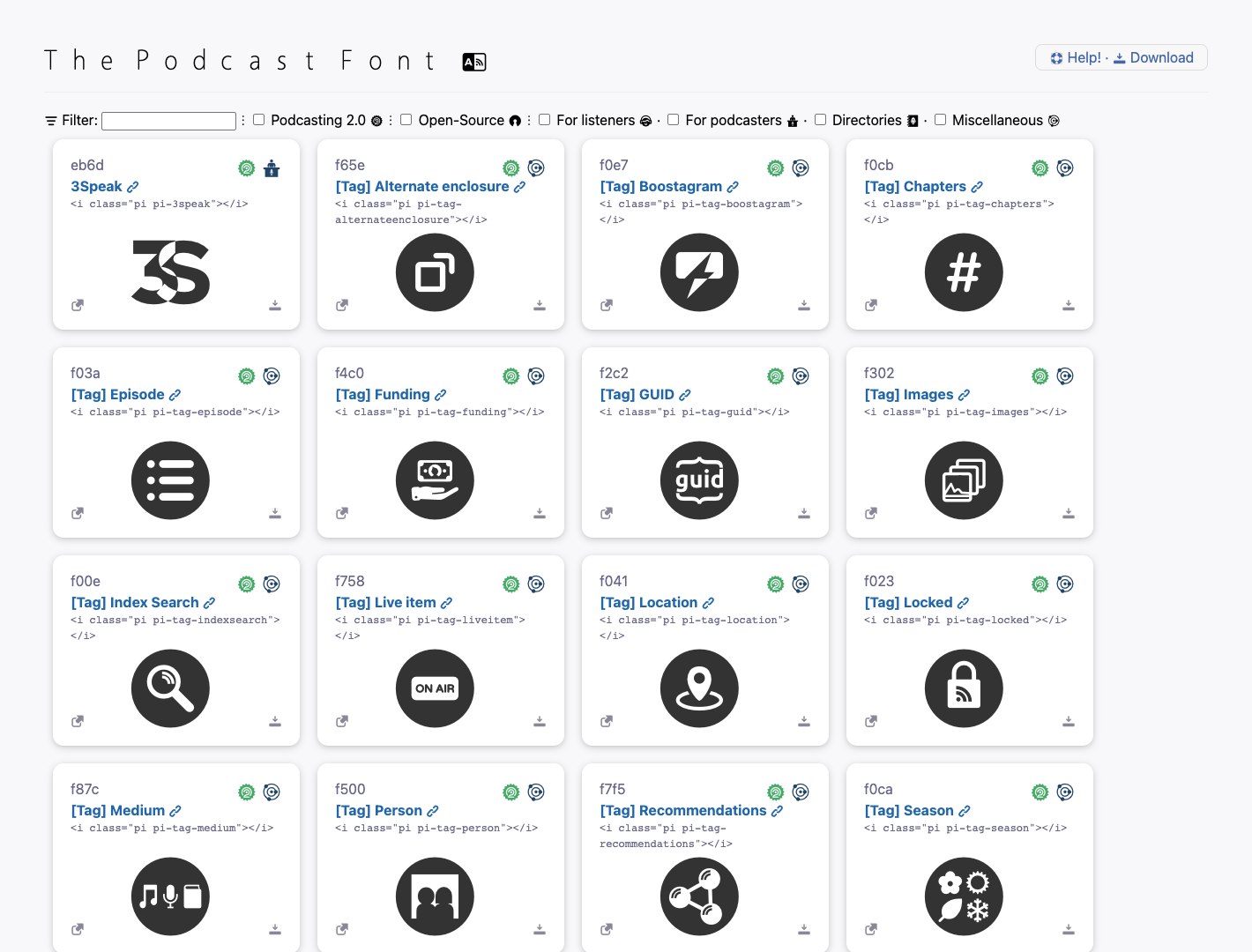
A complete podcast‑themed icon font for websites, apps, and documents
The Podcast Font is an open‑source icon font that provides a complete set of vector icons for the podcast ecosystem. It includes icons for major platforms (Apple Podcasts, Spotify, Google Podcasts), common actions (episode, chapters, boostagram, funding), metadata tags, and standard media controls. Delivered as a single CSS file with Unicode mappings, the font scales cleanly at any size, supports CSS styling, and works across web, mobile, and desktop interfaces.